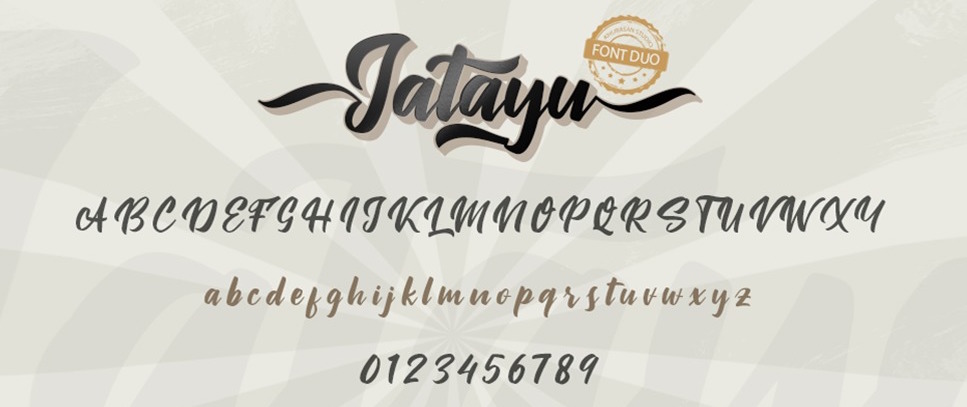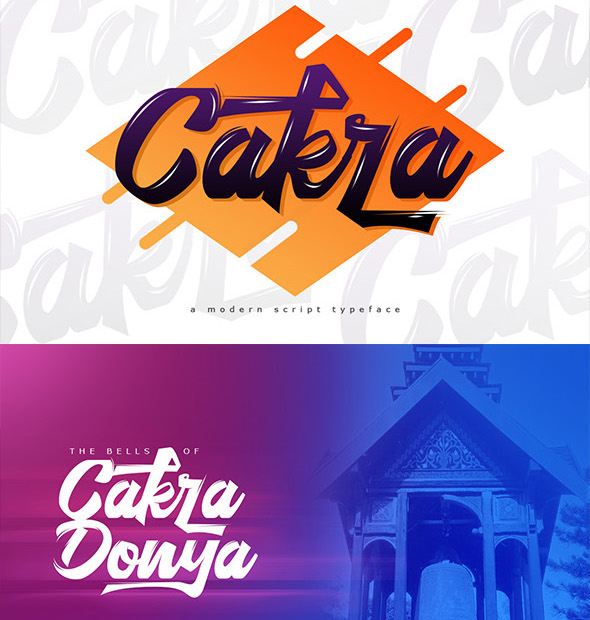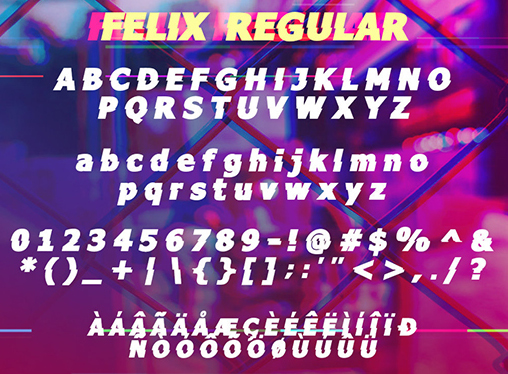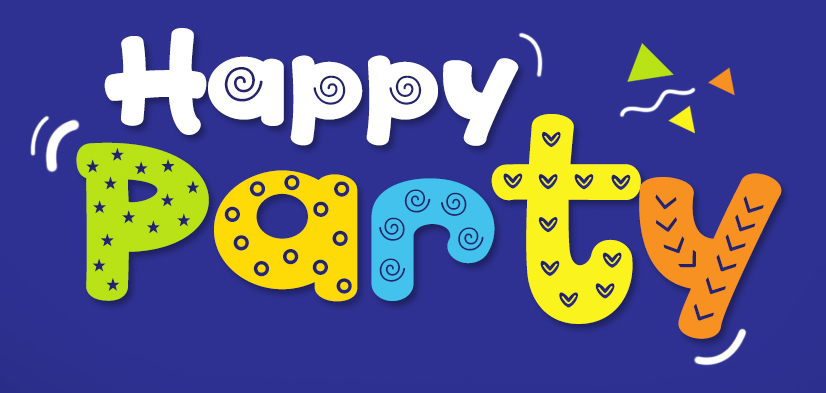
Khurasan [Syaf Rizal]
Aka Khurasan and Jalembe. Aceh, Indonesia-based designer of the free typeface Alamak (2014). In 2015, he made Jomblo Ngenes (comic book script) and Si Brot (heavy brush face). Typefaces from 2016 include Lefina (curly serif typeface), Carlita Script, Creaphy (a brushed Halloween font), Reybro, Moyko (Asian brush emulation), Setialah, Jalani Script, Bijak Script and Labuhan (a lava lamp typeface).
Typefaces from 2017: Felix, Vinyl Script, Millenials (sic), Happy Party, Licht Monoline Script, Qasmi Script, Hitam, Red Merah, Gloomy Night (Halloween font), Gloomy Line, Declara (script), Loveya (calligraphic), Rishtee Signature, Legenda, Indah Script, Exco (sans), Brat Brush, Hatake Brush, Otella Signature, Jaiho Script, Manda Script, Sanies Script, Wolca, Thesla Script, Thory (hipster style), Matta, Sanies Script, Beukah, Miliki, Starmix, Arlisa Script, Raport, Cebo, Tanda Signature, Nelvita Script, Aldine (script), Lexlox, Vallen, Aeron (brush font).
Typefaces from 2018: Welcome 2019 (brush script), Memory of 2018, Big Snow (free), Cute Thing (font duo), Brotha Script (angular), Young Sprime (a glitch font and two Tokyo techno fonts), Get Happy, Pauline & Fairy, Christy & Snow, The Fables Knight, Rogeu (free), Gabuek Script, Foxlite (free dry brush script), Merova, Tempe (brush script), Hi Summer, The Timmy Script, Salah, Summer Back, Coffee and Cookie, Yehaa, Hello Guys, Sweet Bread, Angers Script, Scripto, Sebastrian, Razan Script (free), Viksi Script (free), Arrival, Qsans (layered), Allexis (signature font), Ariel (signature font), Esteh, Tahu (a free script typeface), Cakra Script, Orange Squash Script, Fresh Grapes, Levo Sans (layered), Reman (a free script font), Apalu (a free brush script), Asans (a sketched layered font), Klasic Script, Happy Party, Slavina Script, Abuget (free).
Typefaces from 2019: Pinky Cat (script), Potato Chips (a painted font), Low Batt (a tape font), Hey Fun (a monoline marker pen font), Maquire (a brush face), Breaking Wild, The Brat, Expain, Snow Fairy, Beloved Daughter, Shelva, Henniver, Cold Climate, Friend White, Vixen Deer, Le Petit, Blue Fonts Sans, West Fighter (a dry brush script), Royal Fighter (brush), Smoke Attack (dry brush script), Blue Fonte, Cupid Deer, Blitzen Deer, Hey Comic, Prancer Deer, Comet Deer, Green Fonts, The Baby Monster (a stone cut font), Youth Power, Hey October (dry brush script), Stefont, Halloween Secret, Cute Maple (a great inline comic book font), Cute Jellyfish (a fine children's book font), Greywall, Hey August (dry brush script), Greywall, Great Fighter (brush), Angers Script, Nikolas+Pine, Sheppaloe, Youth Power (a dry brush font), Love Mint, Real Young (squarish caps), This July, Vontens (dry brush), Beloved Teacher, School Times, Tuckers (brush), Pig Year (+Sans, +Display), School Story, Wellfont (dry brush), Happy School (a fat marker font), Are You OK (dry brush), Sand Beach, Oh Now, Sheenaz (a signature font), Real Miami, Mother Day, Ranget, Lovea, Ohio (a high-contrast smooth brush script), Manda, Oh Now (brush style), Evident, Recoba (roman caps), Ariel Script, Sandiago (brush), Cavatelo (brush), Dream Meadow, Virale, Just Kelly Justine, Tempe, Galea (a floriated script), White Pinky, Fair Prosper, Real Ohio, Jatayu, Young Robust, Saitama, Rastazm (dry brush), Fontblitz (dry brush), Young Vigor (dry brush), Fonters (brush), Fontgrab (brush), Metal Pen, Tosca Pen, Blue Pen, Takota (a free brush font), Fontrust (dry brush), Goo Easter, Fontjek (a free thick brush script), Silver Pen, Coral Pen, Striverx (brush), Saltino (fat brush), Under Type (a heavy painted look), White Pen, Fake Serif (brush script).
Typefaces from 2020: Ontel, Fresh Mango, Fresh Lychee, Vuldo (a condensed sans), Gila (a bold titling sans), Mini Story, Anjhay, Fresh Guava, Fresh Coconut (a cartoon font), Fresh Olive, Free License (a dry brush font), Avture, Marqez (dry brush), Gathan (dry brush script), Marie Clara, Clusive, Rehat, Angello, Shaumy (Arabic emulation), Baby Eliot, Baby Pilot, Wash Your Hand, Fontix (a dry brush script), Salazur, (a dry brush script) Alert Covid (grungy), Black Hold (brush), Arthure (brush script), Black Wipe, Asia Tiger, Enjoy Writing, Schagen, Antam, Alansky, Fontrue, Sentury, Rithem, Flashing, Great Sejagad.
Typefaces from 2021: No Virus, Juliagar, Forturn, Masker Area, Hiatus (dry brush), Alphakind (a comic book typefacs).